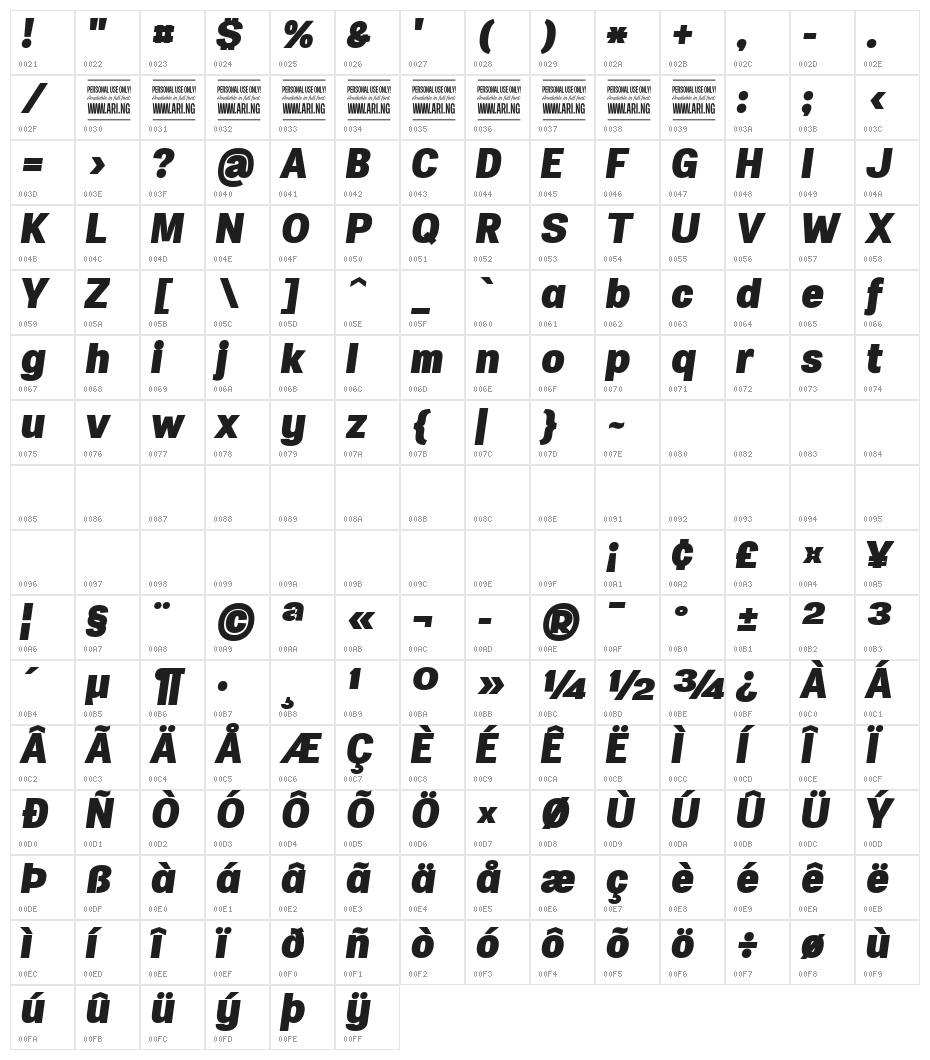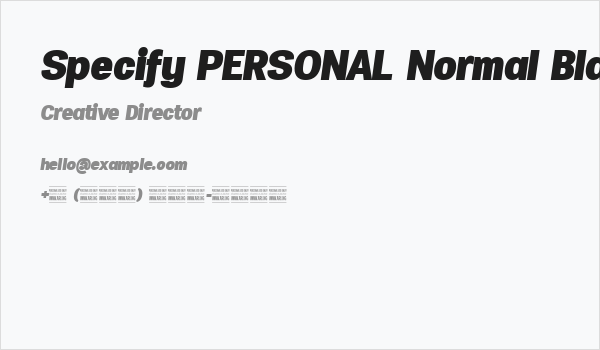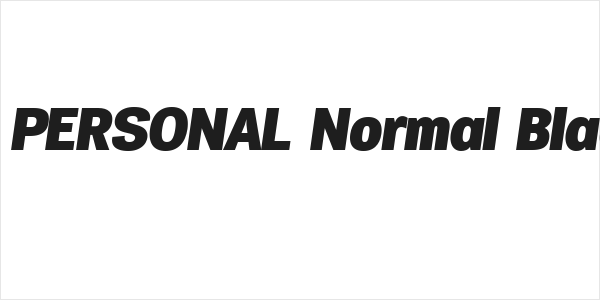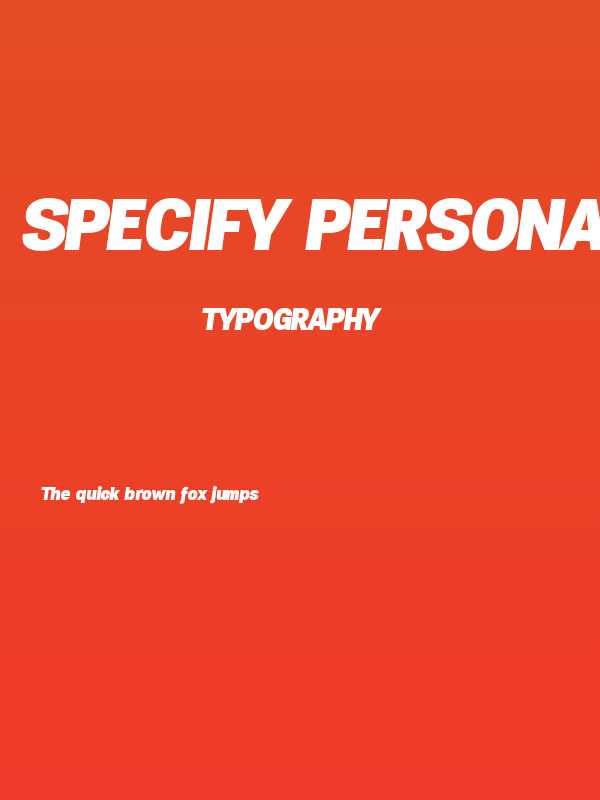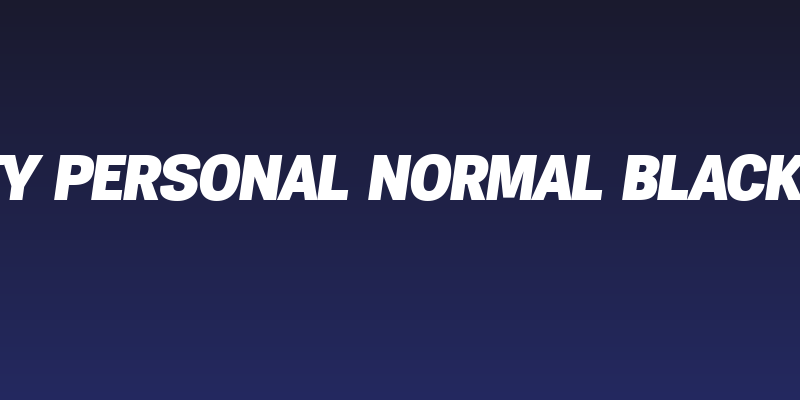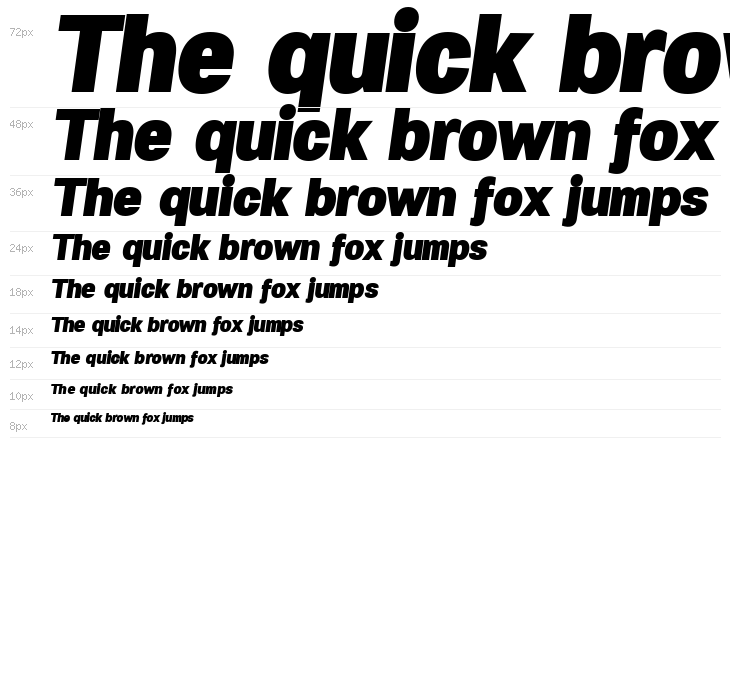
Specify PERSONAL Normal Black Italic Font
Specify PERSONAL Normal Black Italic Description
This font features bold, italicized characters with a strong presence, making it ideal for impactful designs. The uppercase and lowercase letters are designed with a consistent slant, adding a dynamic and modern feel. The numbers and special characters maintain the same boldness and slant, ensuring uniformity across all elements. The font's thick strokes and minimal contrast between thick and thin lines contribute to its powerful appearance, making it suitable for attention-grabbing headlines and logos.
| Proposed Projects | Ideal for branding, advertising, headlines, and logo design where a bold statement is needed. |